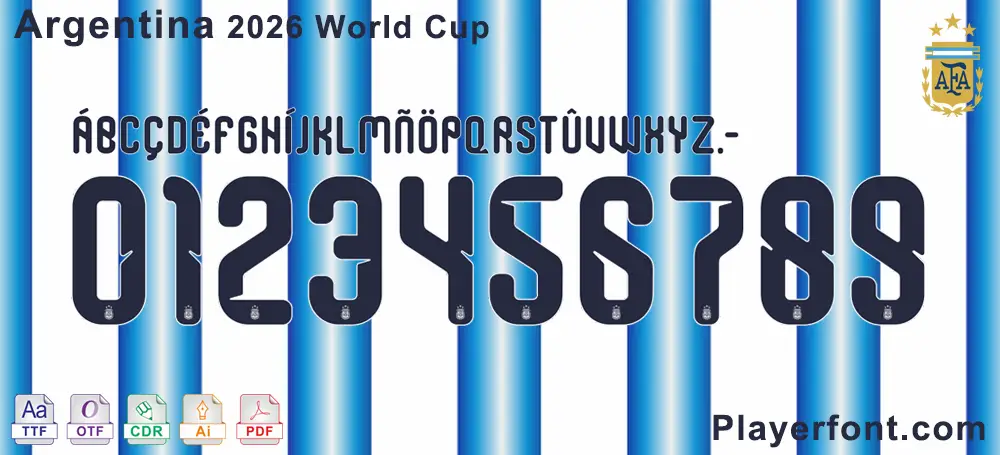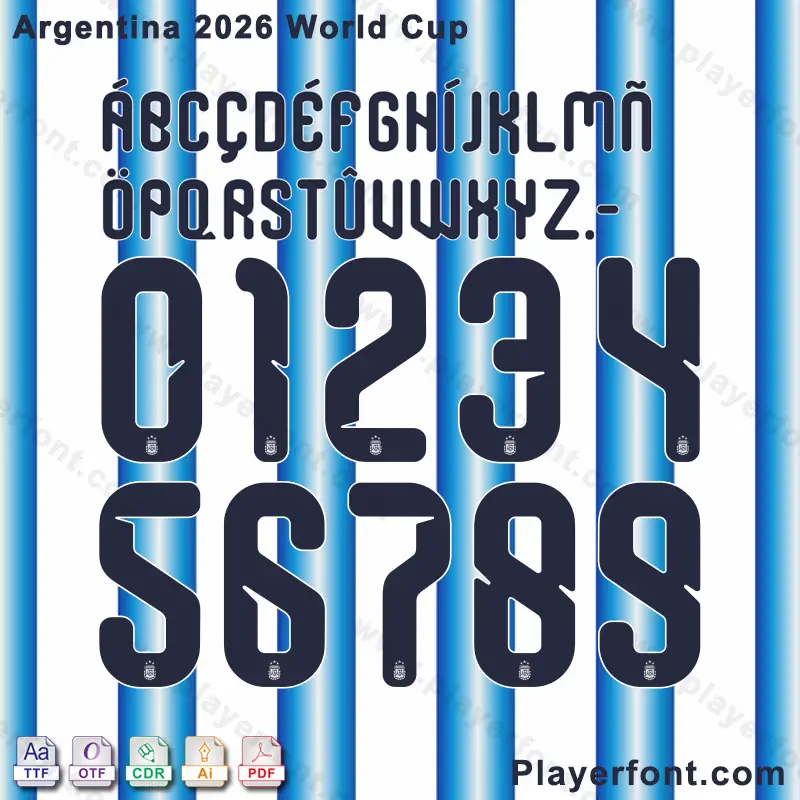
Get ready for the 2026 FIFA World Cup with our officially-inspired Argentina National Team font! This digital asset pack is the ultimate tool for fans, designers, and content creators looking to replicate the authentic look and feel of the Argentine football identity.
- Complete Character Set: Includes all uppercase letters (A-Z), numbers (0-9), and essential punctuation, including special characters for various languages (e.g., Á, Ñ, Ö, Ü).
Whether you’re creating a custom fan jersey, designing unique posters, or working on sports-themed graphics, this official-style 2026 World Cup font provides the authentic detail you need.